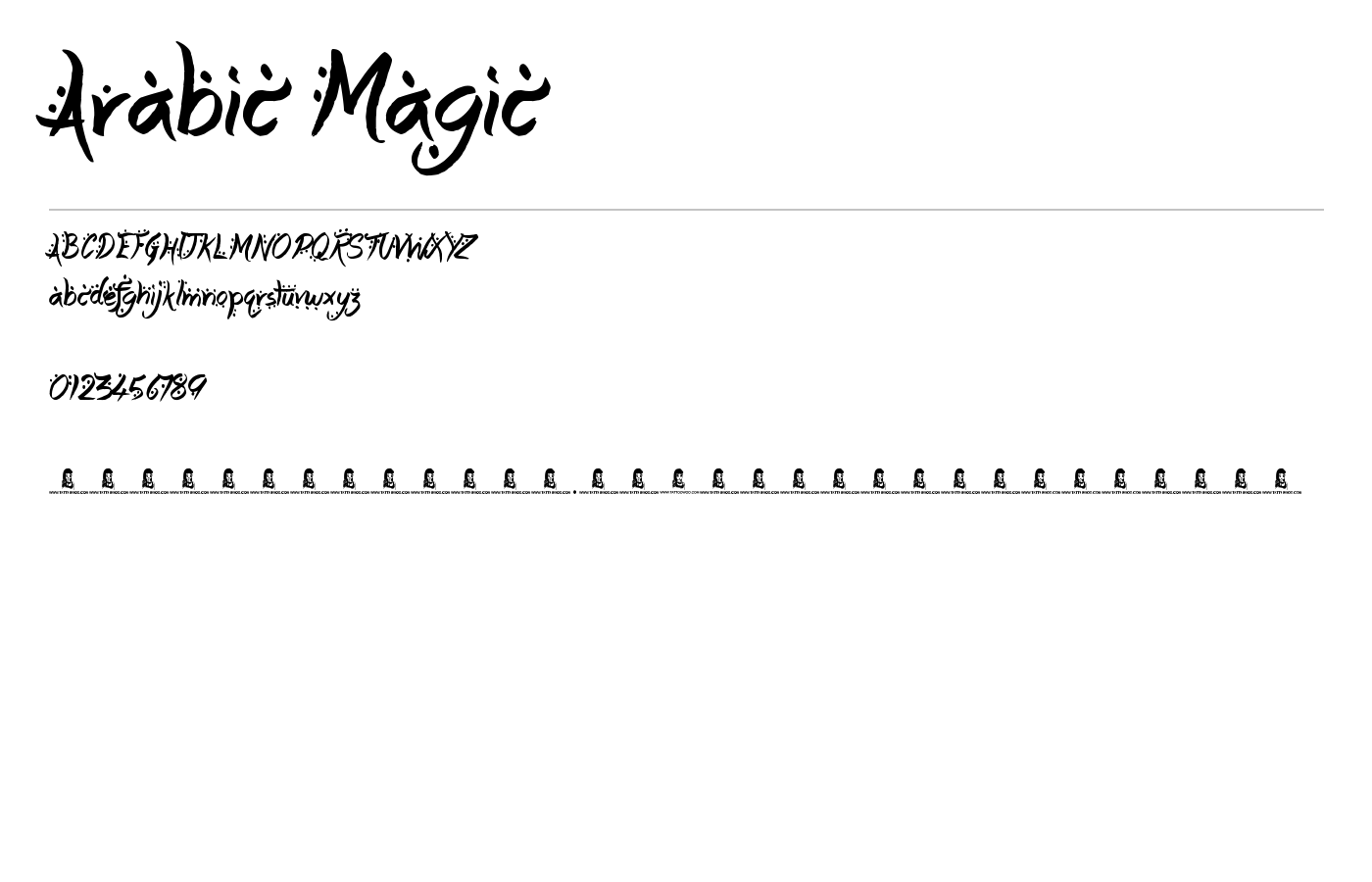
Arabic Magic is a decorative script font that captures an exotic and mystical feel with its playful, calligraphic strokes and irregular letterforms. Its lively, medium weight and dynamic shapes give it a whimsical personality, perfect for creative projects seeking an artistic or fantasy-inspired touch. This font works well in logos, posters, and headlines where a unique, handcrafted style is desired.
Arabic Magic Font
About Arabic Magic Font